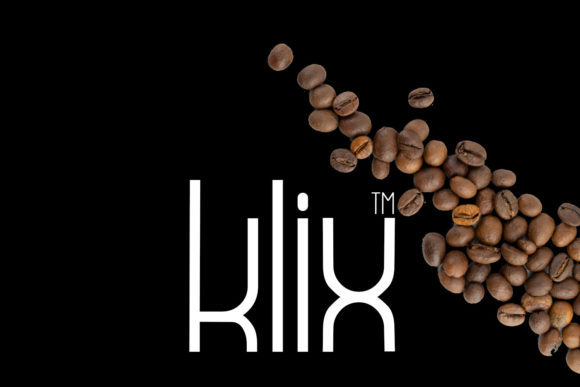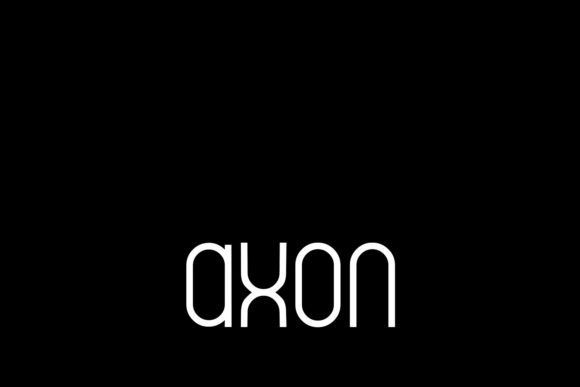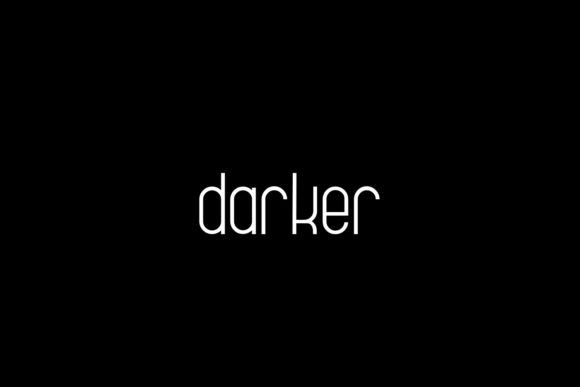
Cataleya Font: The Ultimate Choice for Modern Designs
In the world of typography, fonts play a crucial role in making or breaking a design. A well-chosen font can elevate your brand’s visual identity, convey your message effectively, and leave a lasting impression on your audience. If you’re a designer, craftsperson, or business owner looking for a modern and versatile font, look no further than Cataleya Font. In this article, we’ll explore the features, benefits, and uses of Cataleya Font, and why it’s the perfect choice for your next design project.
What is Cataleya Font?
Cataleya Font is a modern and minimal sans serif font that exudes professionalism and sophistication. Its clean lines, precise curves, and balanced character proportions make it an excellent choice for a wide range of design applications. The font’s simplicity and elegance ensure that it remains legible and visually appealing, even at small sizes.
Key Features of Cataleya Font
- Modern and Minimal Design: Cataleya Font boasts a sleek and contemporary design that will make your brand stand out in a crowded market.
- Professional and Legible: The font’s precise characters and balanced proportions ensure that your text is easy to read and understand.
- Versatile and Adaptable: Cataleya Font is suitable for a wide range of design applications, from business logos and marketing materials to promotional designs and more.
- High-Quality and Scalable: The font is designed to look great at any size, from small captions to large headlines.
Benefits of Using Cataleya Font
So, why choose Cataleya Font for your design projects? Here are just a few benefits of using this exceptional font:
- Enhance Your Brand’s Visual Identity: Cataleya Font’s modern and professional design will help you create a strong and consistent visual brand that resonates with your audience.
- Improve Readability and Legibility: The font’s clear and balanced character design ensures that your text is easy to read and understand, making it perfect for body text, headings, and titles.
- Increase Versatility and Flexibility: Cataleya Font’s adaptability makes it suitable for a wide range of design applications, from print materials to digital platforms.
- Save Time and Effort: With Cataleya Font, you can create professional-looking designs quickly and easily, without sacrificing quality or style.
Uses of Cataleya Font
Cataleya Font is an incredibly versatile font that can be used in a variety of design applications, including:
- Business Logos: Create a professional and memorable logo that represents your brand’s values and mission.
- Marketing Materials: Use Cataleya Font in brochures, flyers, posters, and other marketing materials to create a consistent and compelling visual identity.
- Promotional Designs: Add a touch of elegance and sophistication to your promotional designs, such as banners, billboards, and social media graphics.
- Digital Platforms: Use Cataleya Font in your website design, mobile app, or social media graphics to create a cohesive and engaging user experience.
In conclusion, Cataleya Font is an exceptional modern sans serif font that offers a unique combination of style, versatility, and professionalism. Its clean design, precise characters, and balanced proportions make it an excellent choice for designers, craftspersons, and business owners looking to elevate their brand’s visual identity. Whether you’re creating a business logo, marketing materials, promotional designs, or digital platforms, Cataleya Font is the perfect choice for your next design project.